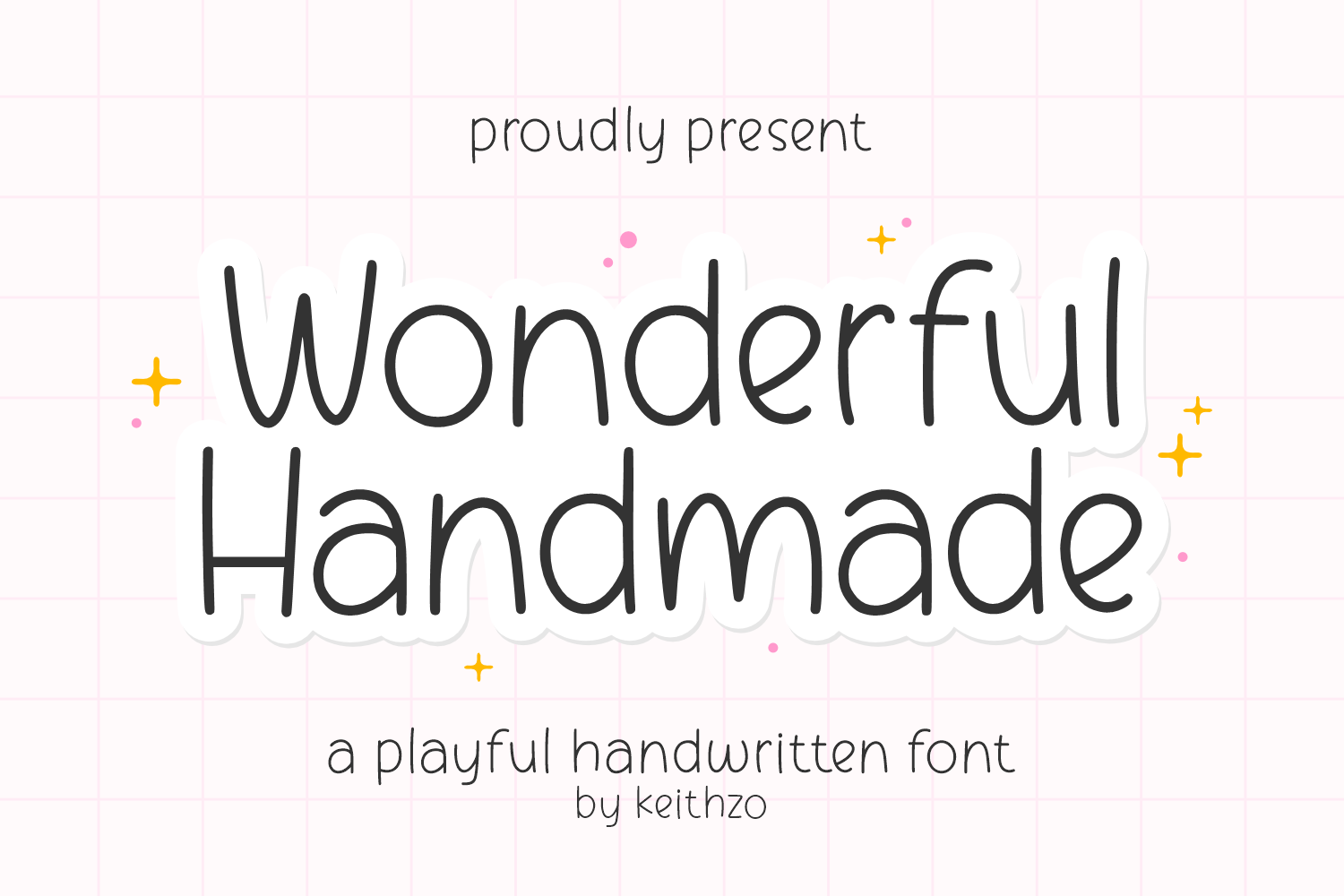
Wonderful Handmade - Notes Font
Immerse in a world of cozy charm with Wonderful Handmade, a handwritten font filled with playful vitality. This character-rich typeface artfully mirrors the vibrant flair of human penmanship, making it an unparalleled choice for design connoisseurs pursuing a genuine handmade appeal.
Blessed with pristine lines and an alluring inconsistency, this handwritten font captivates with an inviting and amiable personality, creating a memorable impact in the vast digital universe. Your handcrafted-style branding or heartfelt stationary would get an organic feel with Wonderful Handmade’s unique touch, ensuring your designs resonate with authenticity and warmth.